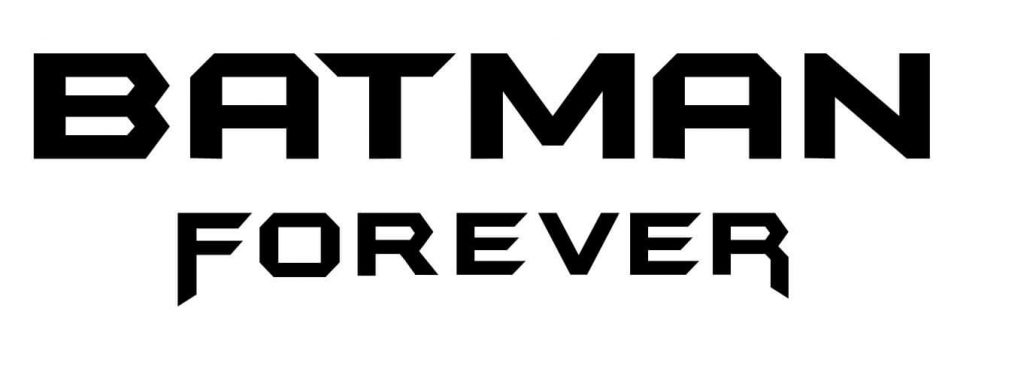
Introducing the Batman Forever Font, a modern and beautiful sans serif typeface that resembles blockletter style but with some unique features. This font includes a total of 34 styles, with 9 being capital letters, 9 italicized, and the remaining sixteen containing an icons set. We have all the upright and italic font sets available here for you.
Having awesome legibility and keen features, this nice font is now within the list of probably the most subtle typefaces.